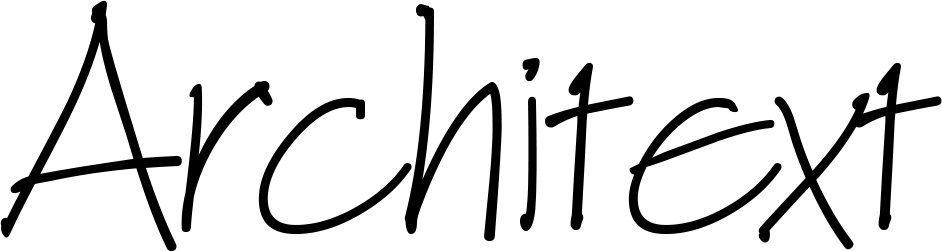
Architext Font
The main point of informal typography will be a more approachable design. Handwritten fonts have a childish feel, and what makes this unique Architext font special is its light and slim structure.
Want something similar to the unique style of human handwriting?! Then you should make use of the Architext for your typography. The results of the caps and regular A to Z letters, numbers, and symbols will help, your texts or designs, like books and more to stand out.